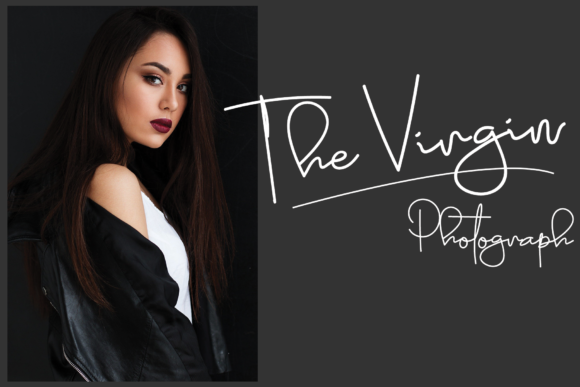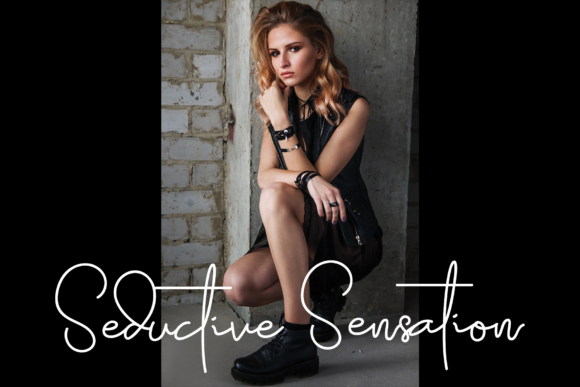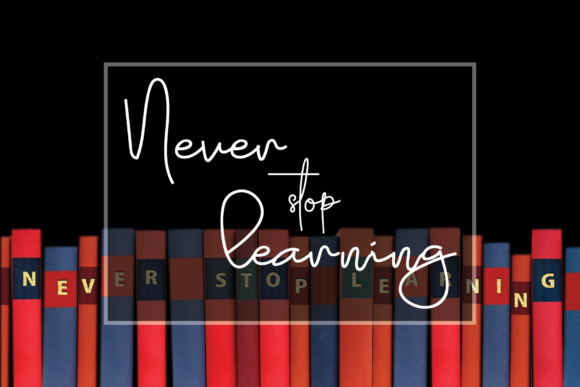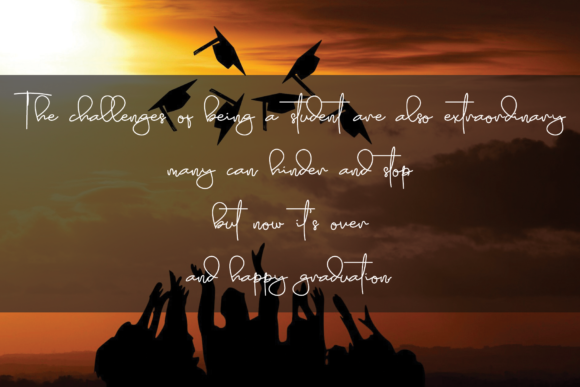
The Perfect Script Font for a Memorable Graduation Day
As I sat in front of my computer, staring at a blank page, I was tasked with designing a special graduation invitation for my best friend. I wanted it to be perfect – elegant, yet personal, and above all, unforgettable. That’s when I stumbled upon the Graduation Day Font, a script font that truly made my design come alive. Its intricate details and beautiful curves gave my invitation a touch of sophistication and whimsy, making it truly special.
The Graduation Day Font is a masterfully crafted script font designed to elevate any creation. Its versatility and charm make it an invaluable asset to any designer’s library. Whether you’re designing a graduation invitation, a wedding card, or a birthday message, this font has the potential to add a personal touch and make your design truly stand out.
Key Features of Graduation Day Font
- Unique Characteristics: The font features a celebratory and elegant design, perfect for graduations, academic achievements, and other special occasions.
Designer Review: Graduation Day Font
I recently had the chance to work with the ‘Graduation Day Font’, and I’m sharing my honest thoughts on this design.
- Cute and playful appearance, perfect for celebratory designs
- Clear and easy-to-read even at smaller font sizes
- Good for short texts or headlines, but can be used for body text as well
- May not be the best choice for formal or professional designs
- Limited to only a few weights and styles, which can make it feel restrictive
- Doesn’t have many international characters or accents
Overall, I think the ‘Graduation Day Font’ is a fun and playful choice for celebratory designs. While it may have some limitations, it’s perfect for short texts or headlines. If you’re looking for a fun, casual font to add some personality to your design, this might be a great choice. However, if you’re working on a more formal project, you might want to consider a different font.
Graduation Day Font Practical Application Guide
Tips for Getting the Most Out of the Graduation Day Font
To get the most out of the Graduation Day Font, try the following:
- Use it in bold or italic to add emphasis.
- Pair it with a matching color scheme for a cohesive look.
- Experiment with different font sizes and combinations for maximum impact.
The Graduation Day Font is perfect for:
- Graduation invitations and announcements.
- Academic certificates and diplomas.
- Education-themed posters and banners.
Alternatives to Graduation Day Font
Playfair Display is a luxurious and elegant font perfect for special occasions. It’s ideal for designing invitations, certificates, and other celebratory materials. Compared to Graduation Day Font, Playfair Display has a more refined and sophisticated look, making it suitable for high-end events.
Great Vibes is a modern and stylish font with a touch of elegance. It’s perfect for creating a sense of excitement and joy, making it ideal for graduation invitations, programs, and other celebratory materials. Unlike Graduation Day Font, Great Vibes has a more contemporary feel and is suitable for a wide range of designs.
Creamer
Creamer is a beautiful and elegant font with a vintage touch. It’s perfect for creating a sense of nostalgia and tradition, making it ideal for graduation invitations, certificates, and other celebratory materials. Compared to Graduation Day Font, Creamer has a more classic and timeless look, making it suitable for formal events.